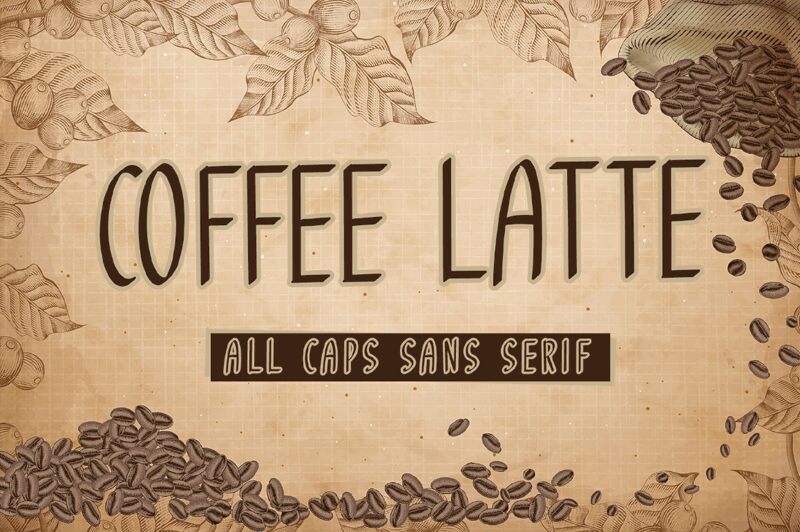
Coffee Latte, designed by Phantom Studio, is a charming handwritten font that adds a touch of warmth to any project.
With its semi-light weight and extra-condensed width, this font is perfect for creating elegant invitations, stylish logos, and sophisticated packaging designs. Its organic and flowing glyphs make it ideal for coffee shops' menus or cozy café branding. Additionally, Coffee Latte can bring a whimsical feel to children's book covers or greeting cards.